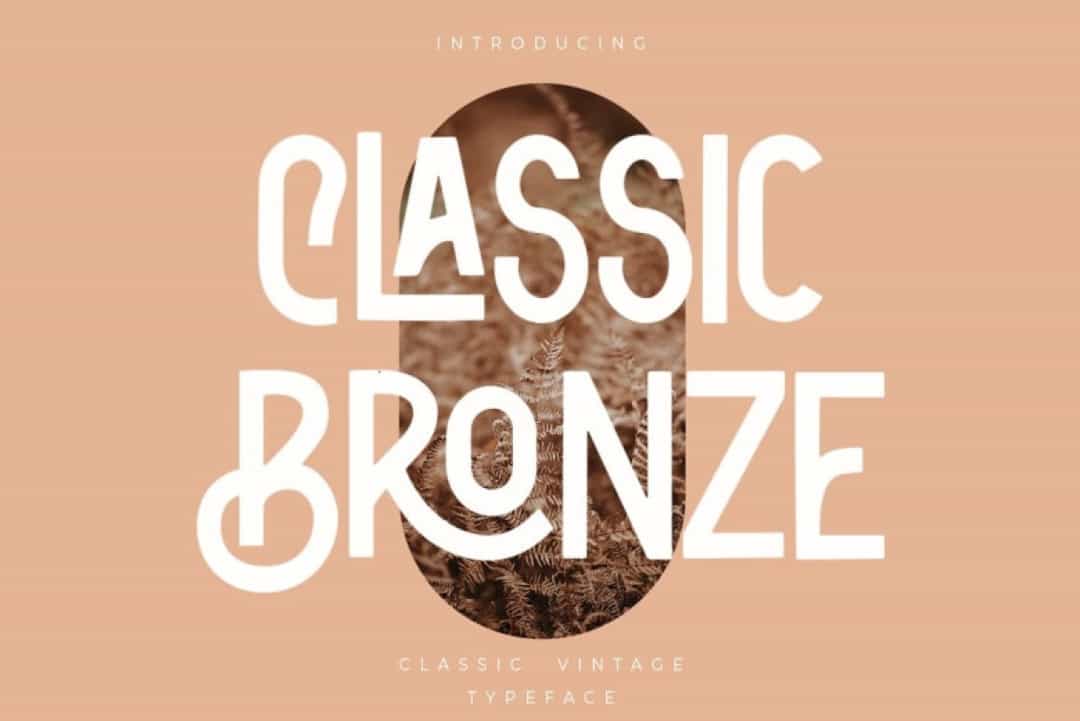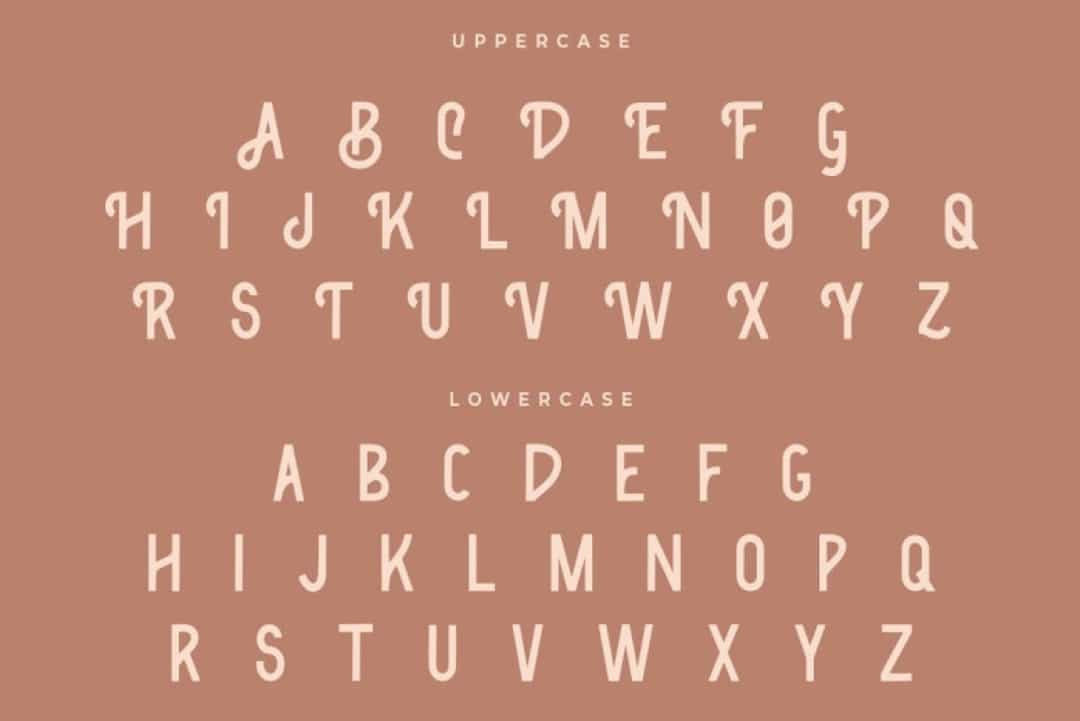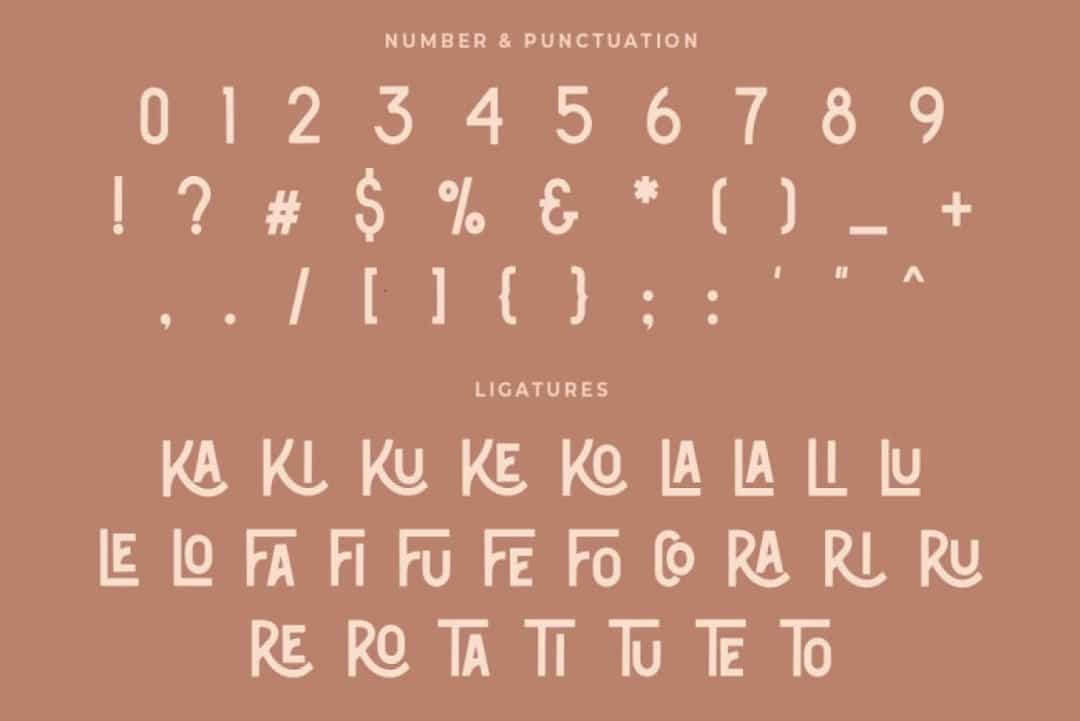
Classic Bronze font is an exquisite font with stylish alternate characters that create an elegant and chic appearance. This font includes uppercase lettering, numbers and symbols with Stylistic Alternates used for specific characters to help mix and blend letters more easily.